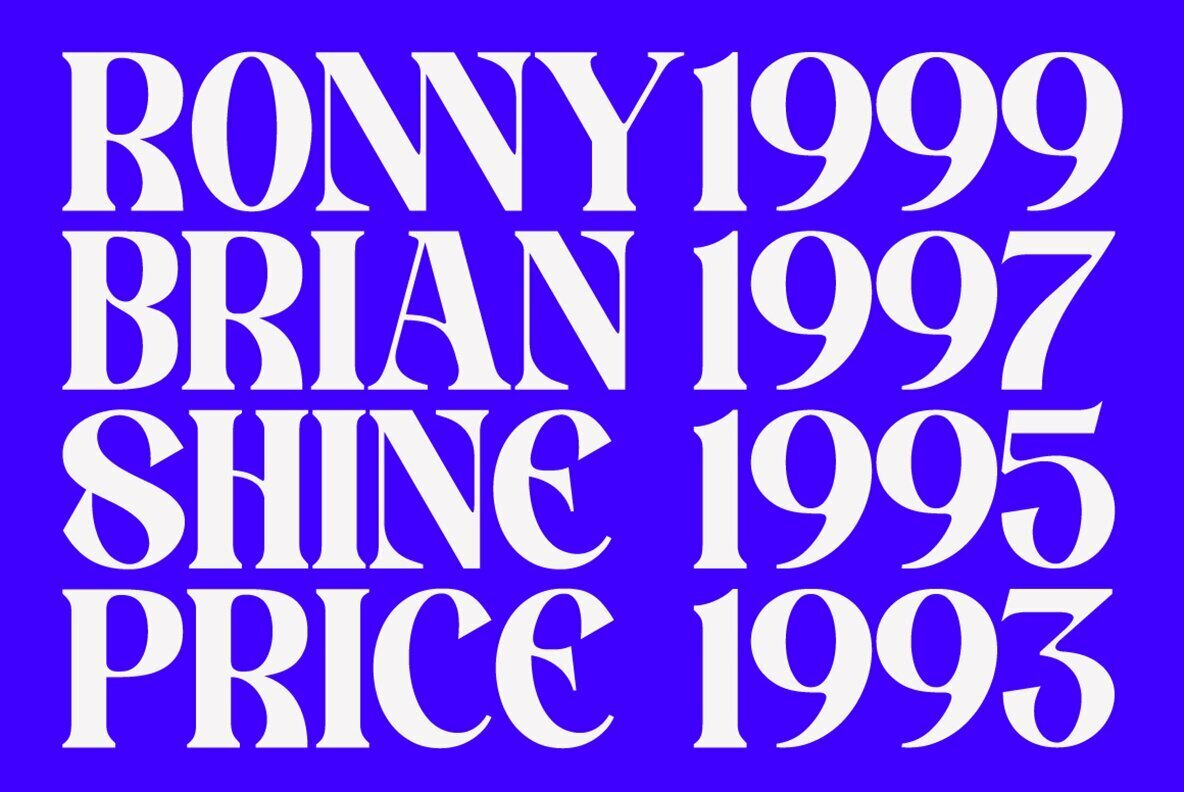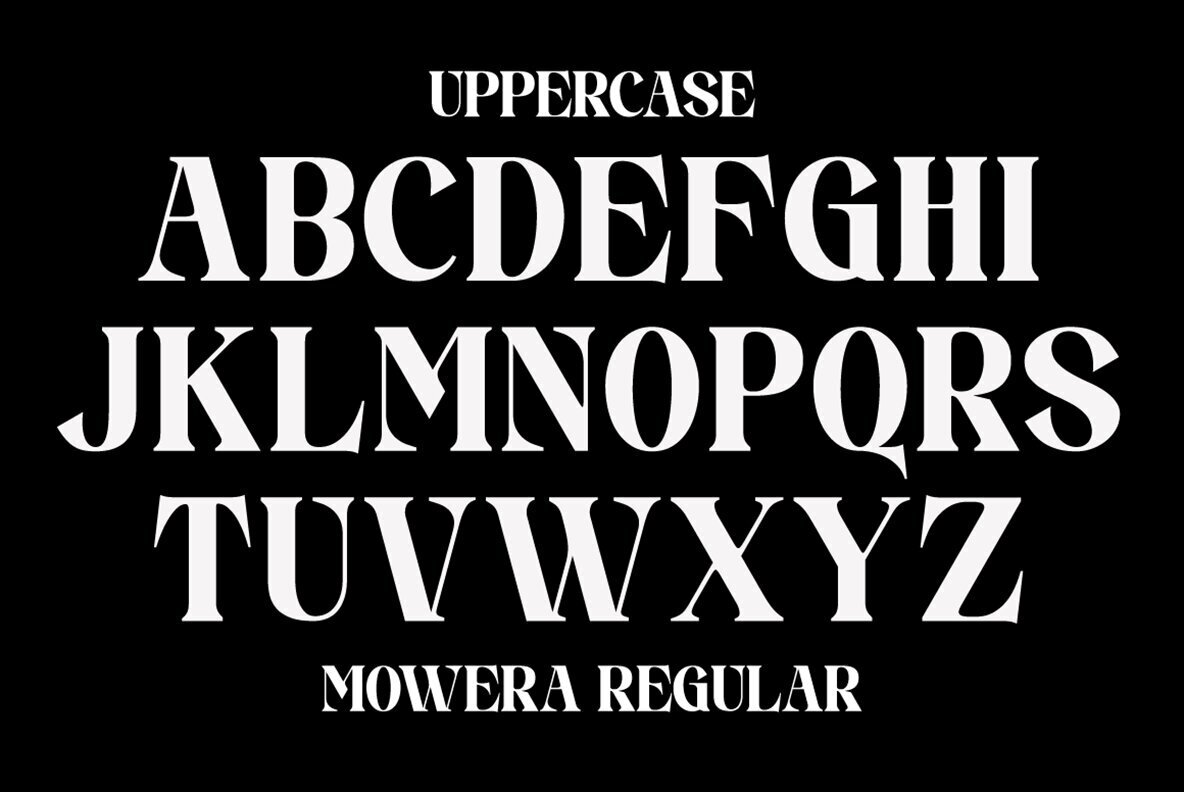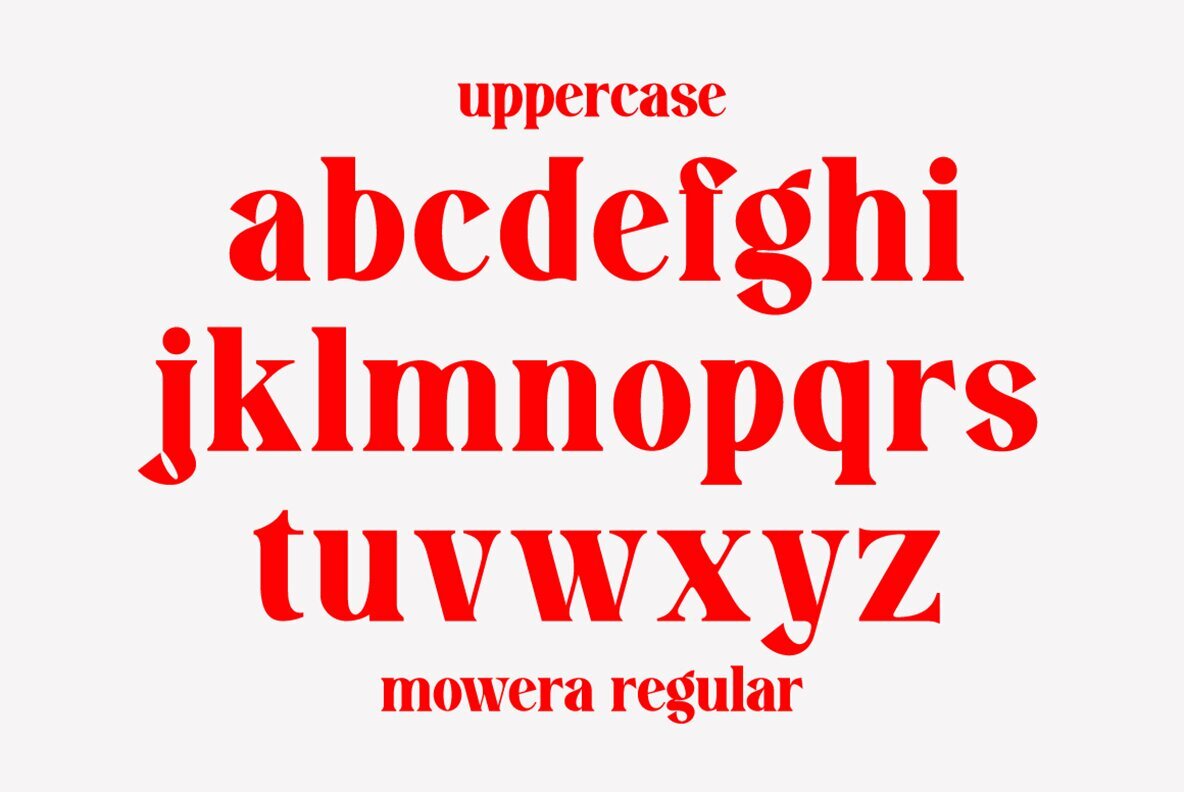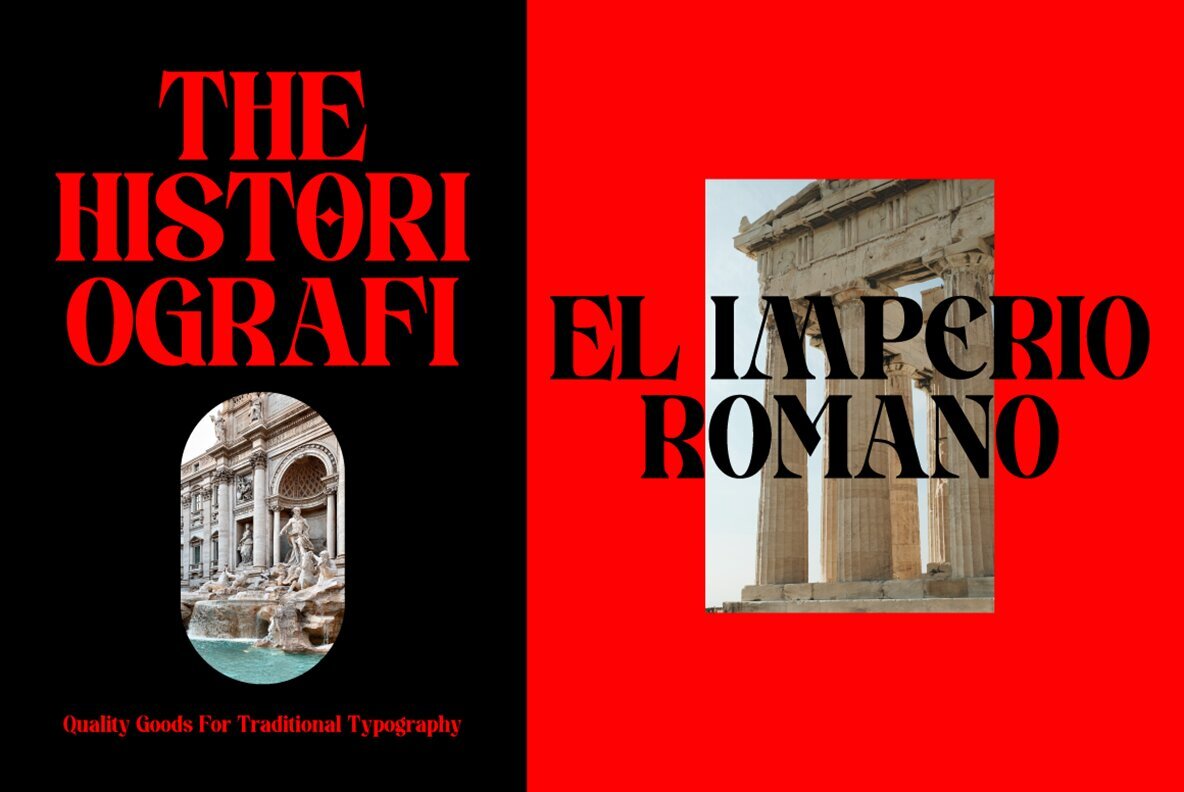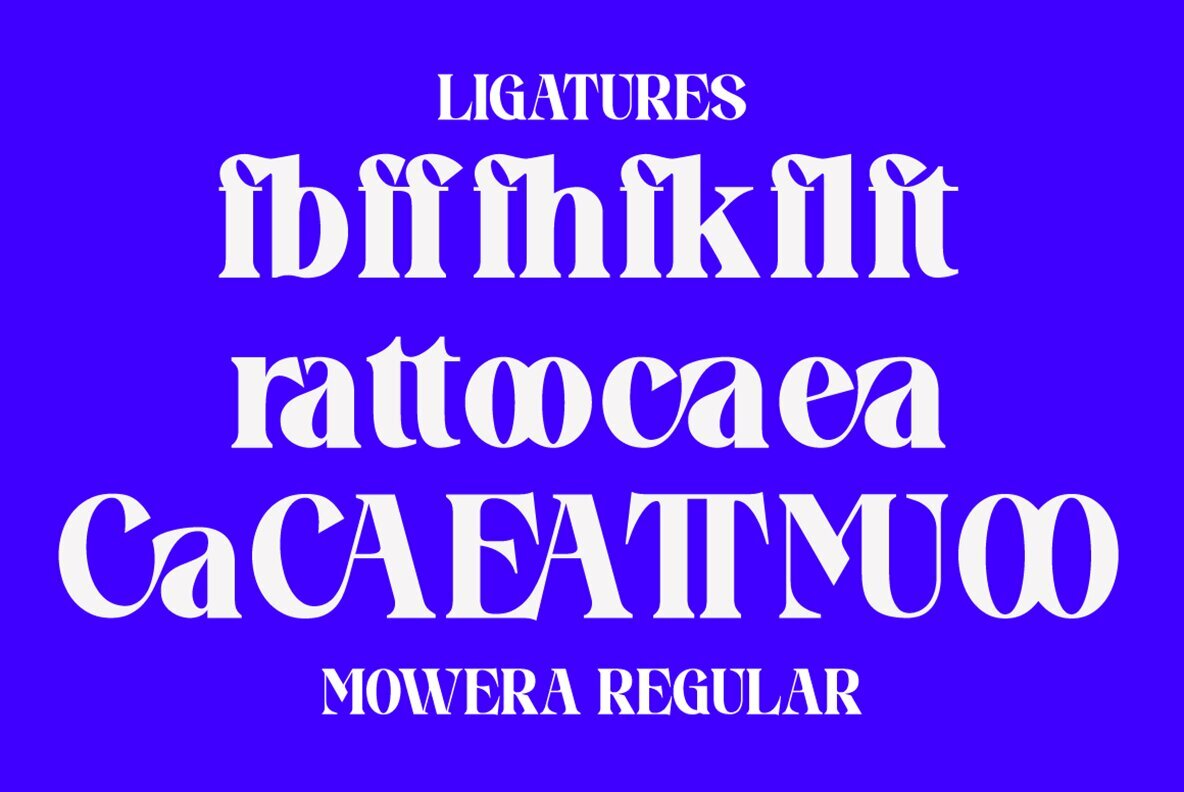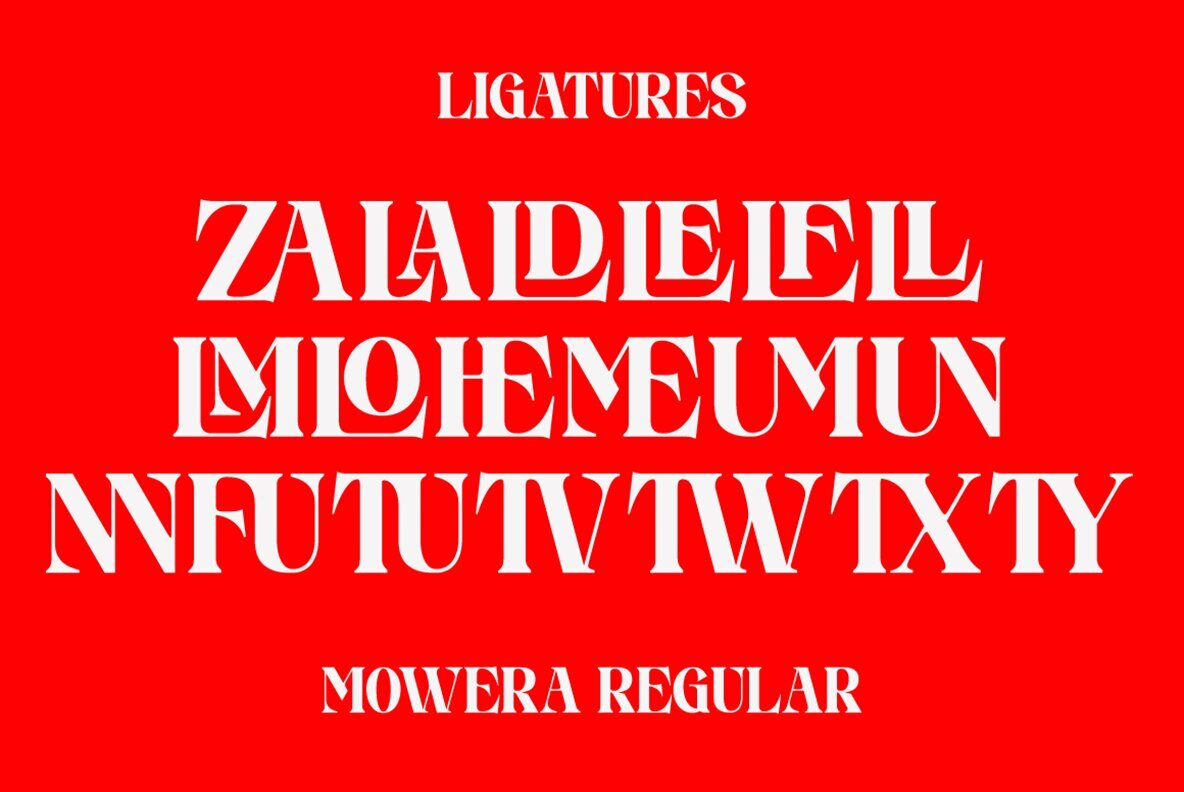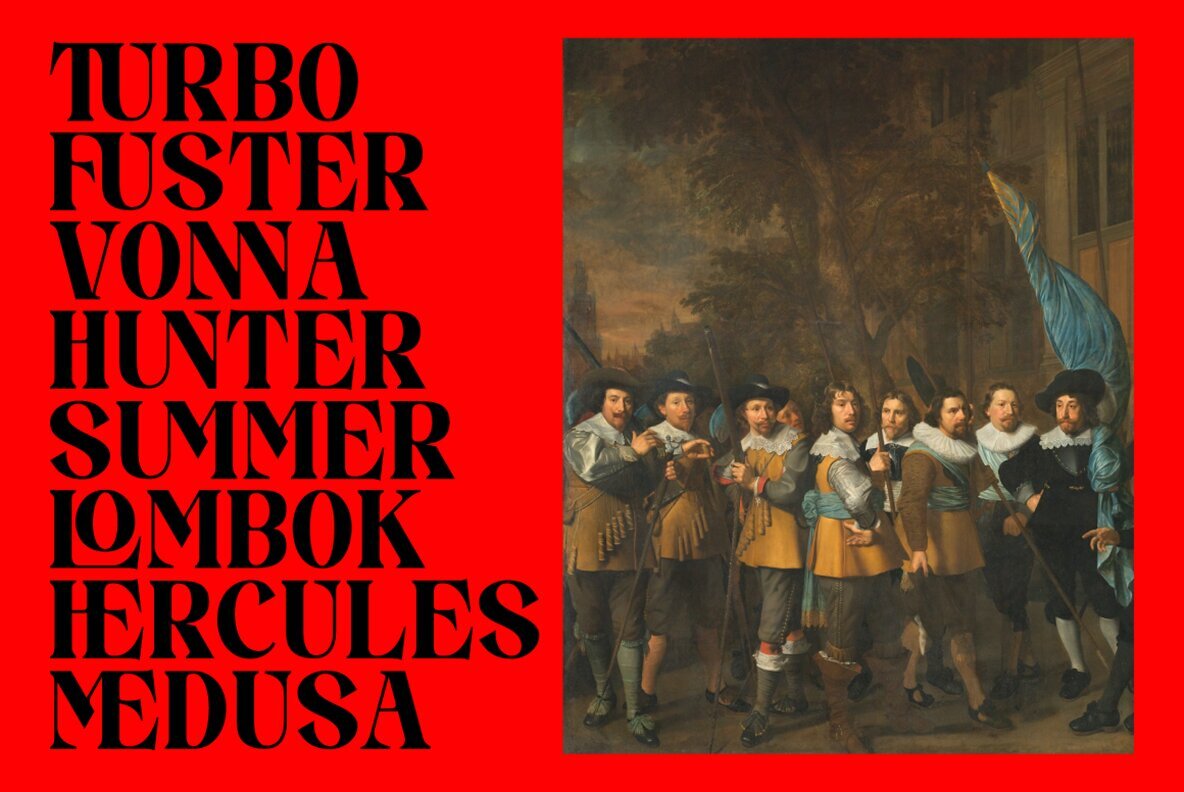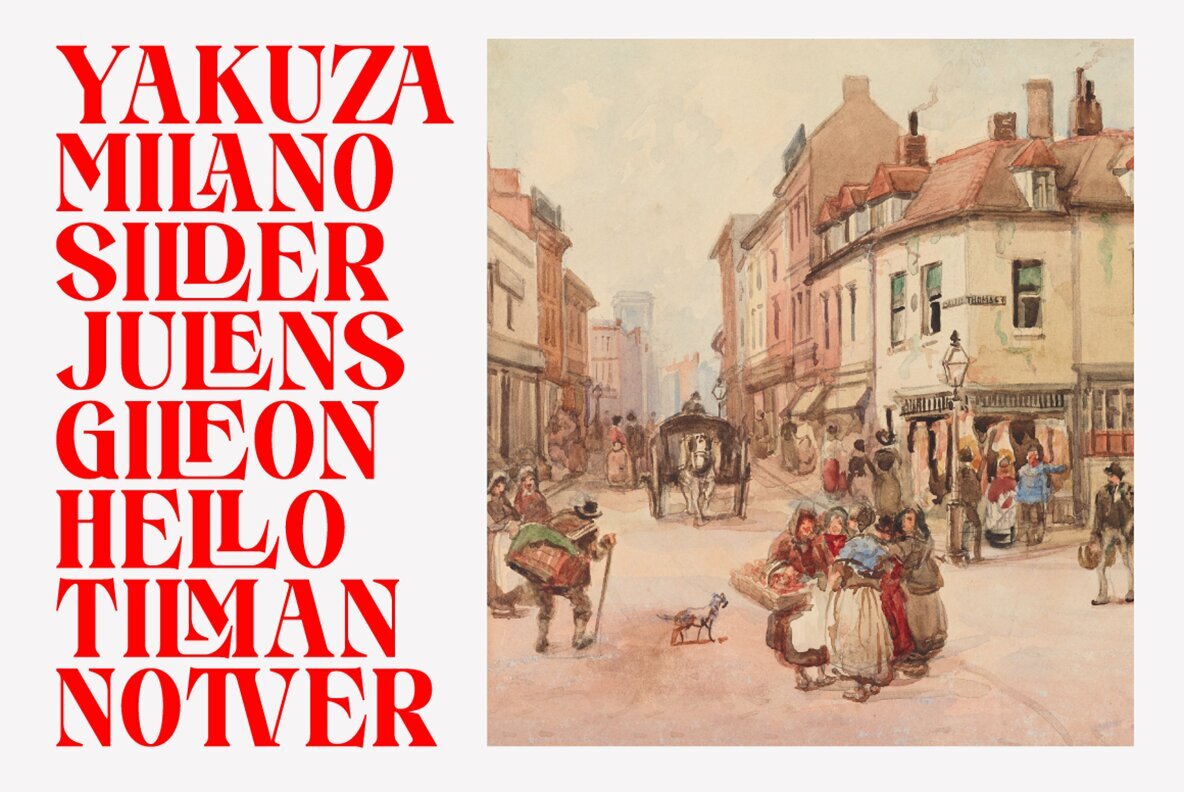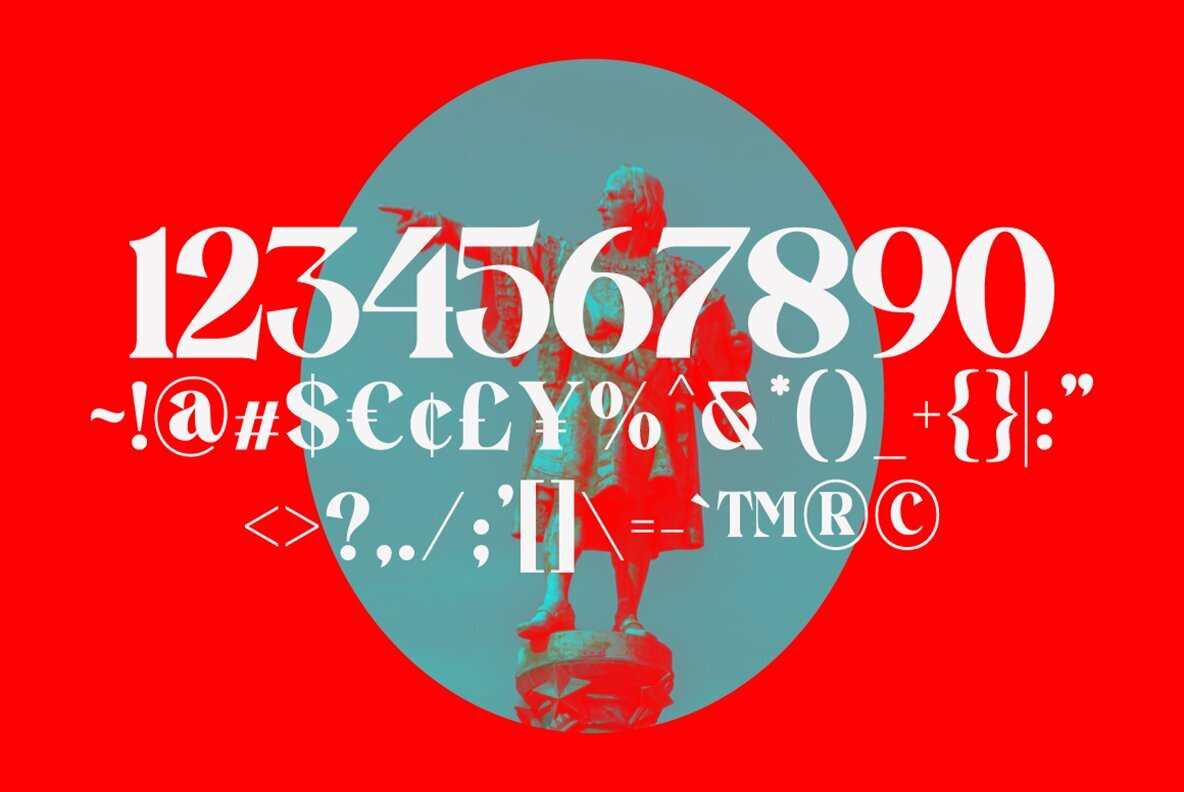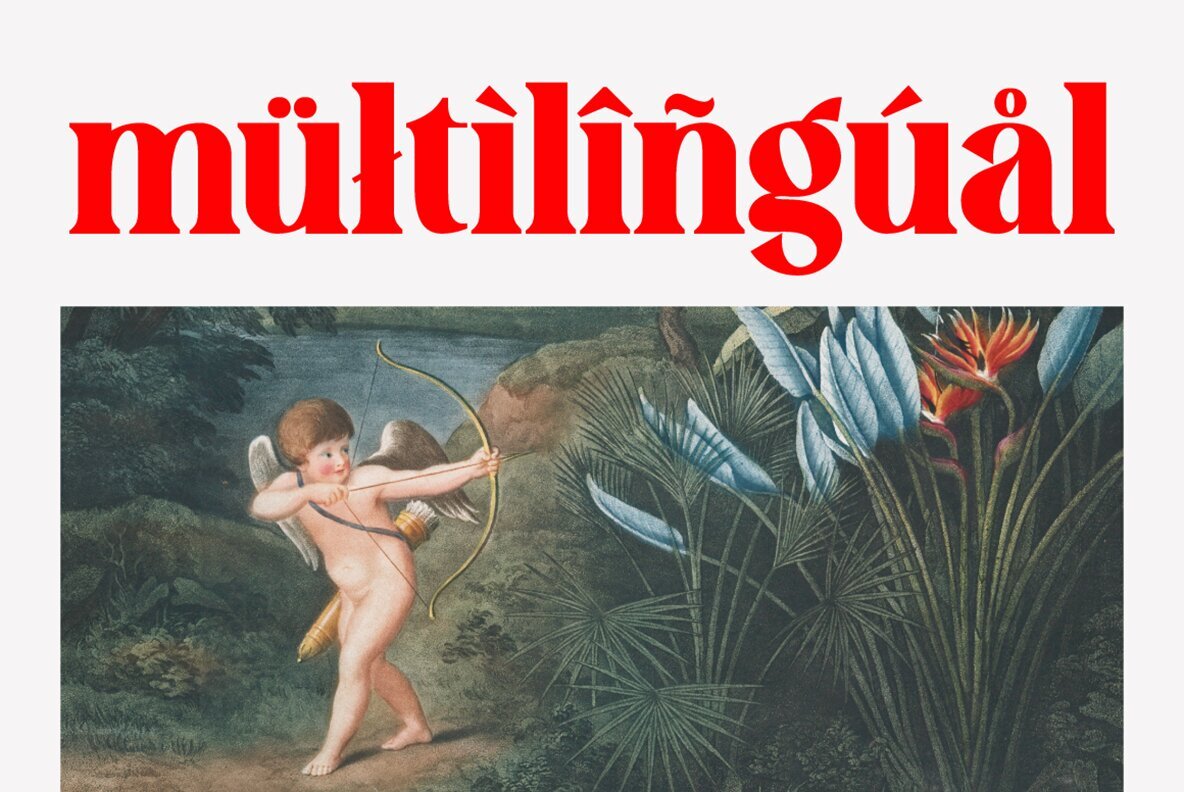
Mowera Font
Mowera Regular
Mowera is a vibrant and contemporary serif typeface that features a strong style and a dancing baseline. It is ideal for a range of applications, including invitations, greeting cards, branding materials, business cards, quotes, posters, and more. The Mowera Display Typeface is characterized by its strong and modern bold display. It shines in both display sizes and text sizes, offering sharp triangular serifs and distinctive letter shapes that are perfect for logo design and impressive editorial use. Mowera is a perfect addition to your font collection and will enhance your creative projects. Should you have any questions, feel free to reach out. Thank you, and happy creating!Mowera: A Fresh and Modern Serif with Strong Style